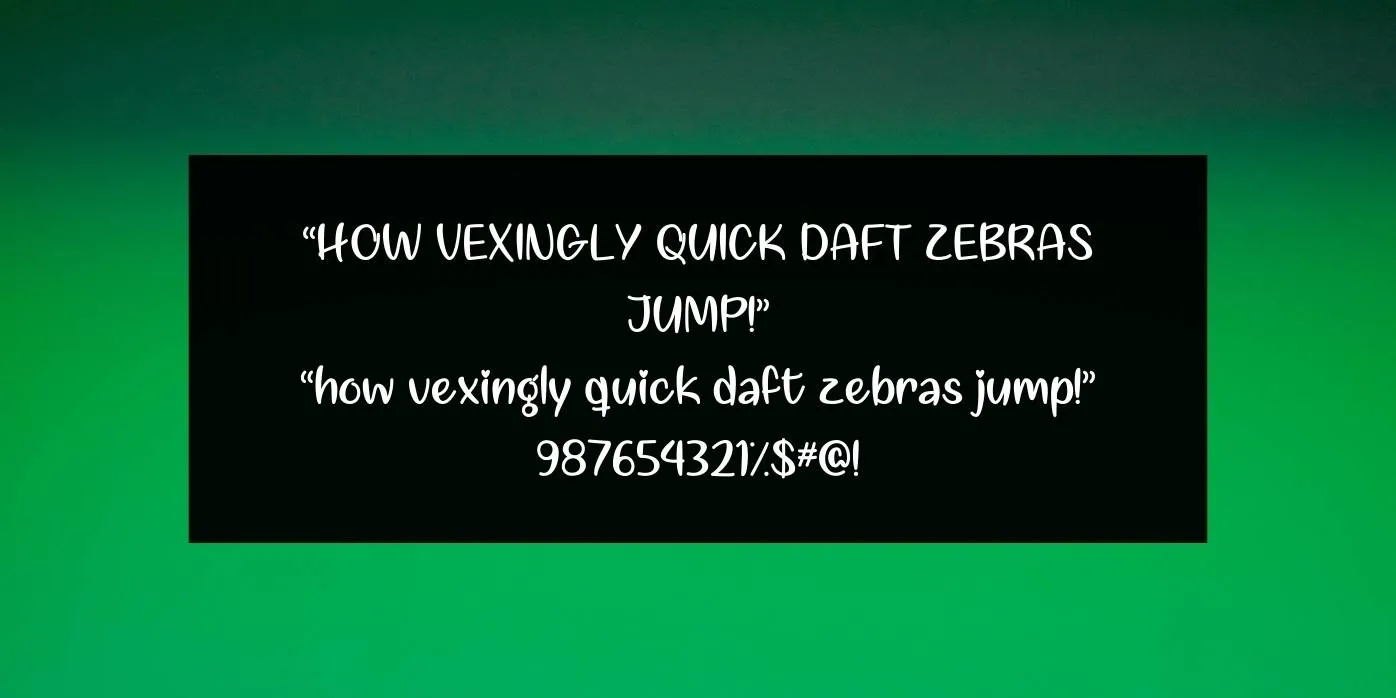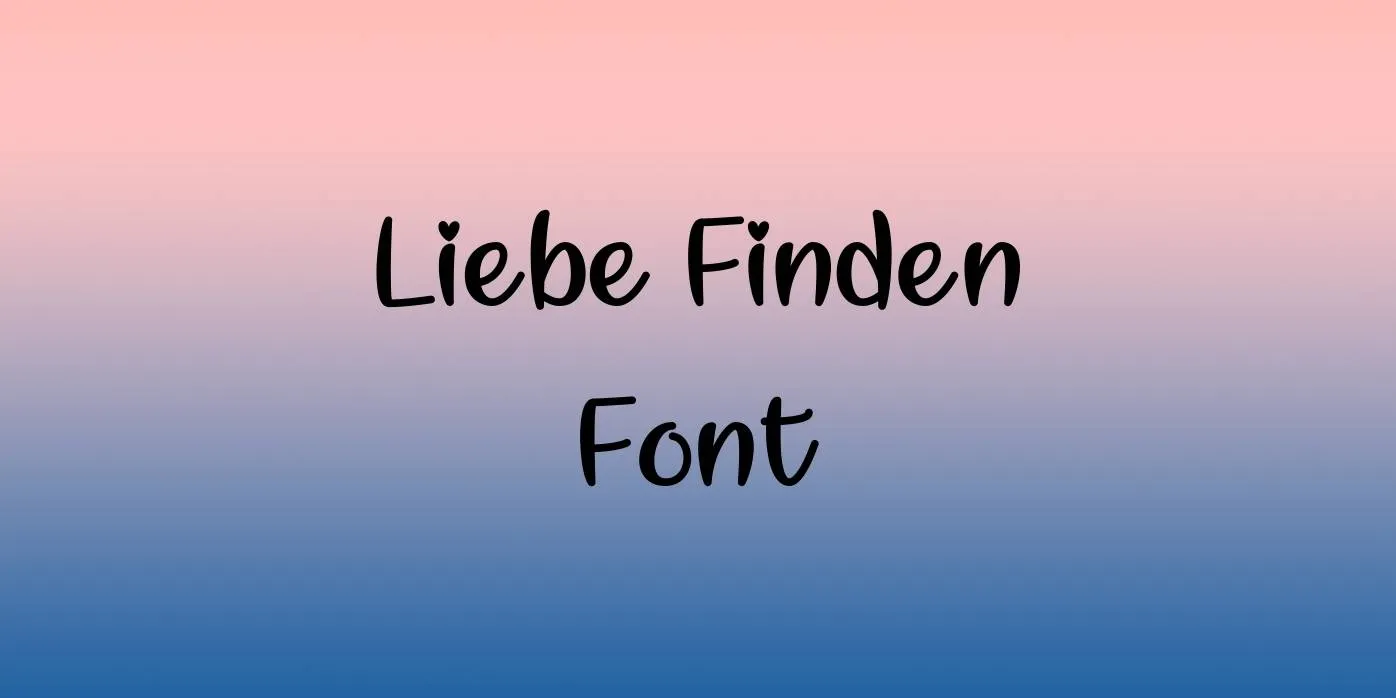
Liebe Finden Font
Liebe Finden Font is a German font that was created in the early 20th century. It is a very popular font and is used by many people. The font has a very unique design and is very easy to read. The typeface has a matching personality with other typefaces and can provide cool performance with the pairing of steam logo font.